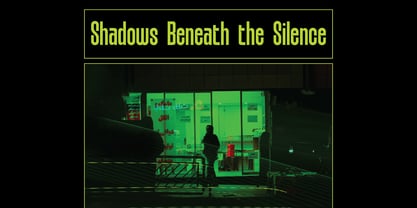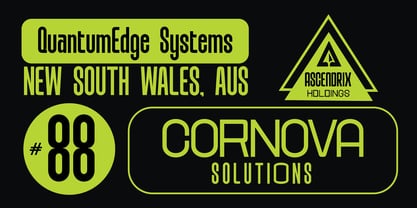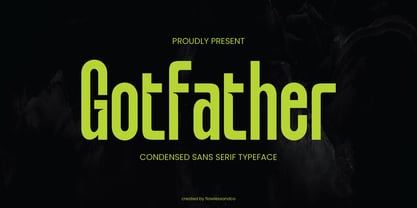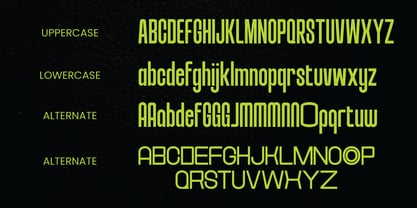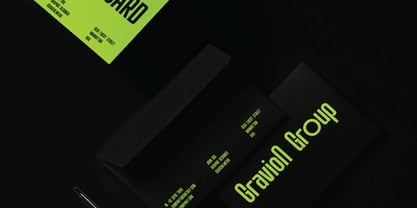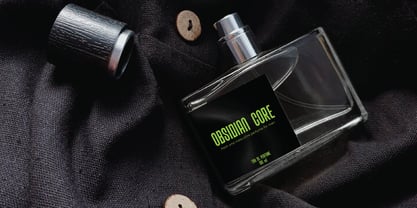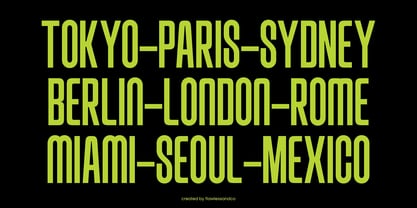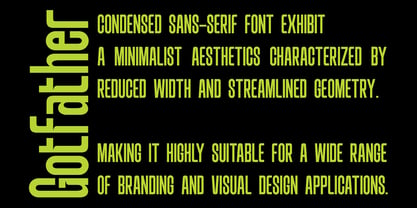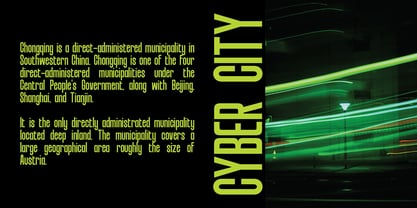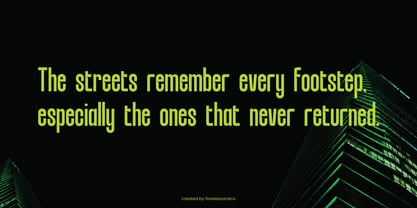
Gotfather
GOTFATHER is a bold condensed sans serif typeface that brings a modern, futuristic attitude with sharp precision and sleek structure. Designed to make a striking impact, GOTFATHER stands tall with its ultra-tight spacing, clean lines, and confident personality. Inspired by urban style, tech visuals, and strong editorial layouts, GOTFATHER is perfect for creating standout headlines, innovative branding, and statement logo designs. Its condensed structure allows you to maximize space without sacrificing style, making it ideal for both digital and print use. Whether you’re designing posters, apparel, album covers, or high-impact ads, GOTFATHER gives your message a bold, uncompromising voice.
Features :
Multilingual, Uppercase alphabet A-Z, Lowercase alphabet a-z, Numbers 0-9, Some punctuation, Alternates & Ligatures